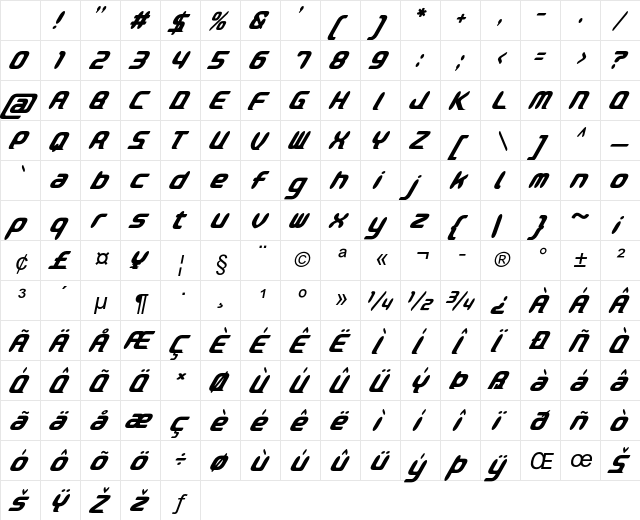
Complete Parvo Italic glyph index. Displaying only characters natively supported by Parvo Italic font.
Parvo is a composed and adaptable typeface that performs quietly and consistently across a wide range of design contexts. The slanted form adds forward momentum and visual energy.
Pro Tip: Use Parvo for emphasis, pull quotes, and subheadings where its slanted energy can add rhythm to the layout.